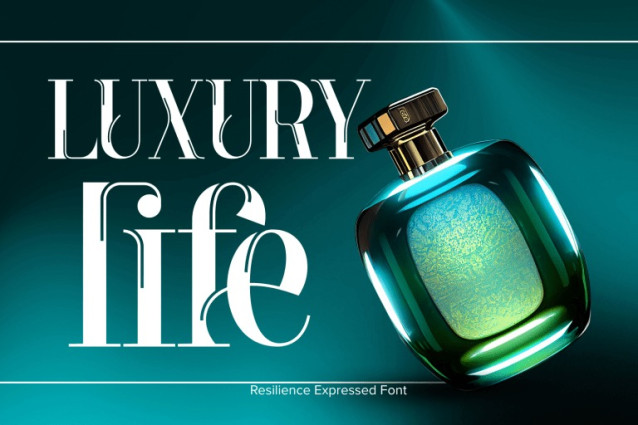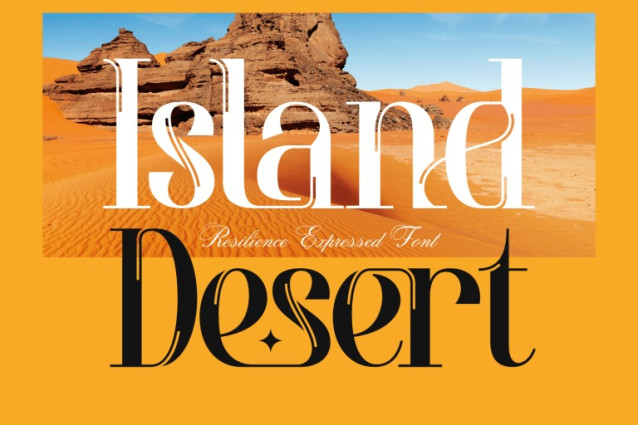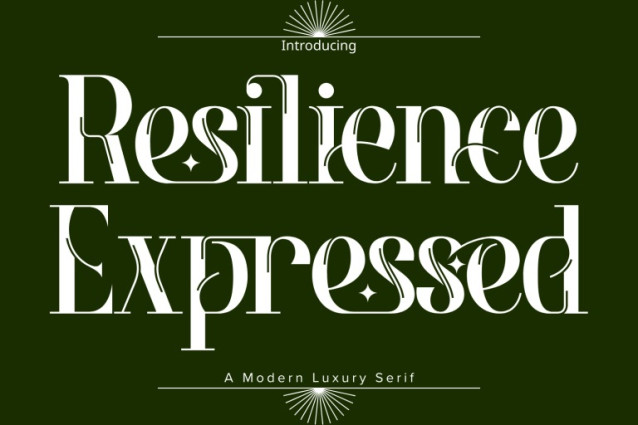
Resilience Expressed Font
Resilience Expressed Font – Elegant Modern Serif Display Font, an elegant modern serif display font crafted with a refined, expressive character and a strong sense of sophistication. This typeface blends classic serif foundations with contemporary proportions, featuring high contrast strokes, graceful curves, and decorative details that add a subtle sense of luxury and charm. Resilience Expressed stands out with its artistic terminals, soft flourishes, and carefully designed ligatures that bring a distinctive rhythm to typography. The font feels both timeless and modern, making it perfect for high-end branding, editorial design, fashion magazines, packaging, logos, invitations, and premium visual identities.
🔤Features:
Uppercase & Lowercase Letters
Around 100 Special Ligatures & Alternates
Accented Characters for multilingual support
🔤About 100 ligatures combined with Stylistic Alternates Font: